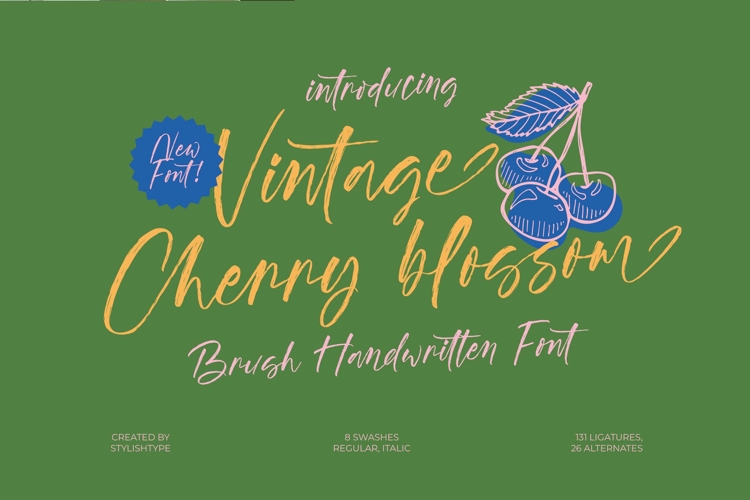
Vintage Cherry Blossom - Brush Handwritten Font
Inject instant authenticity and unmistakable character into your next project. Vintage Cherry Blossom - Brush Handwritten Font is a dynamic, high-energy typeface that captures the raw charm of genuine hand-painted lettering. Its bold, irregular brushstrokes provide a tactile texture, blending vintage nostalgia with modern vitality. This expressive script font excels at creating personalized, engaging visual narratives that demand attention and convey a sense of handcrafted quality, ensuring your design truly stands out in a crowded market.